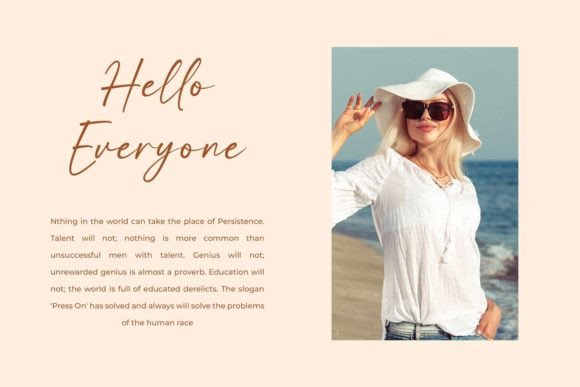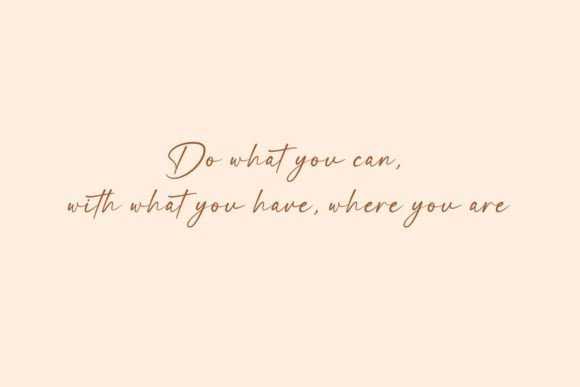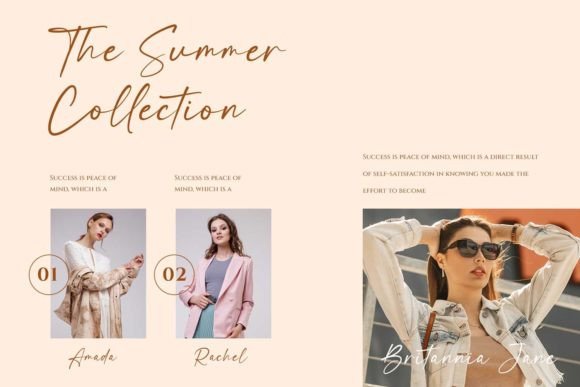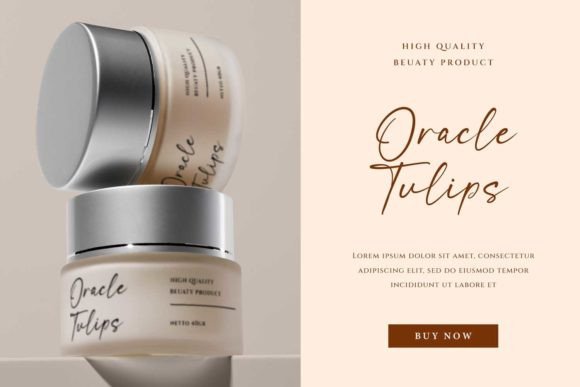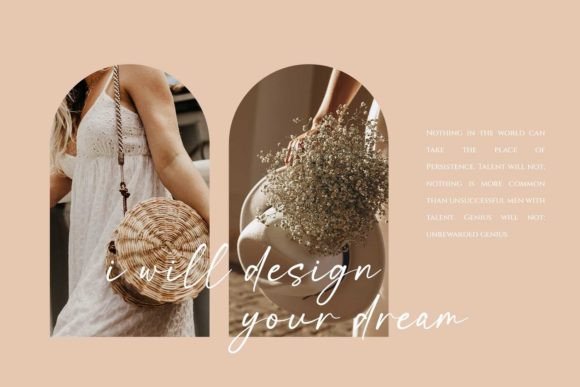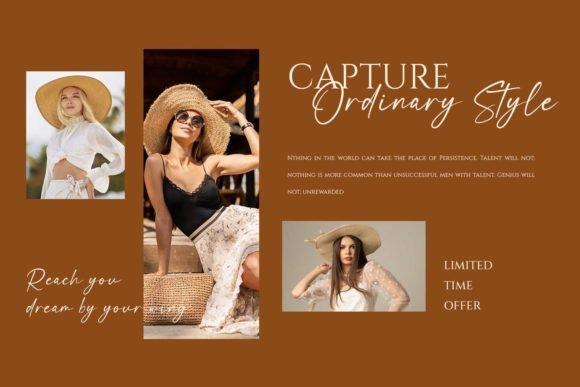
Introduction to Modern Britania Font
As a designer, there’s nothing quite like the thrill of bringing a creative vision to life. You’ve spent hours pouring over sketches, experimenting with color palettes, and refining your concept. And then, it happens – the perfect font appears, elevating your design from good to sublime. For many, this moment is the result of a well-placed search for the perfect free download. But what happens when you stumble upon a font that not only meets your expectations but exceeds them?
Enter Modern Britania Font, a high-quality design resource that’s been making waves in the creative community. With its delicate, sophisticated signature script, this font is the epitome of modern luxury and refinement. Whether you’re working on a high-end branding project, designing a wedding invitation, or simply looking to add a touch of elegance to your next creative project, Modern Britania Font is an invaluable addition to your toolkit.
Key Features of Modern Britania Font
- High-quality design: The Modern Britania Font is a premium design resource, offering crisp and clean typography for creative projects.
- Unique characteristics: The font features a unique blend of modern and classic elements, making it a standout choice for creative projects that require a touch of sophistication.
Honest Review: Modern Britania Font
As a designer, I’m always on the lookout for high-quality design resources to elevate my creative projects. Recently, I had the chance to explore the Modern Britania Font, and I’m excited to share my thoughts on this versatile font.
- ✨ High-quality design with a unique blend of modern and classic elements
- ✨ Wide range of font styles, making it perfect for various creative projects
- ⚠️ Limited font sizes and weights, which may not be suitable for large-scale projects
- ⚠️ Some users may find the font a bit too modern, which may not appeal to those preferring more traditional designs
Overall, I’m impressed with the Modern Britania Font’s potential for creative projects. While it may have some limitations, its unique design and high-quality execution make it a valuable addition to any designer’s toolkit. If you’re looking for a versatile and free design resource, the Modern Britania Font is definitely worth checking out.
To get the most out of the Modern Britania Font, use it in combination with a transparent background to create a clean and modern design. You can also use the font in conjunction with other design elements, such as graphics and images, to create a visually appealing design.
The Modern Britania Font is commonly used in various creative projects, including branding, logos, and marketing materials. It is also used in web design, social media graphics, and presentations.